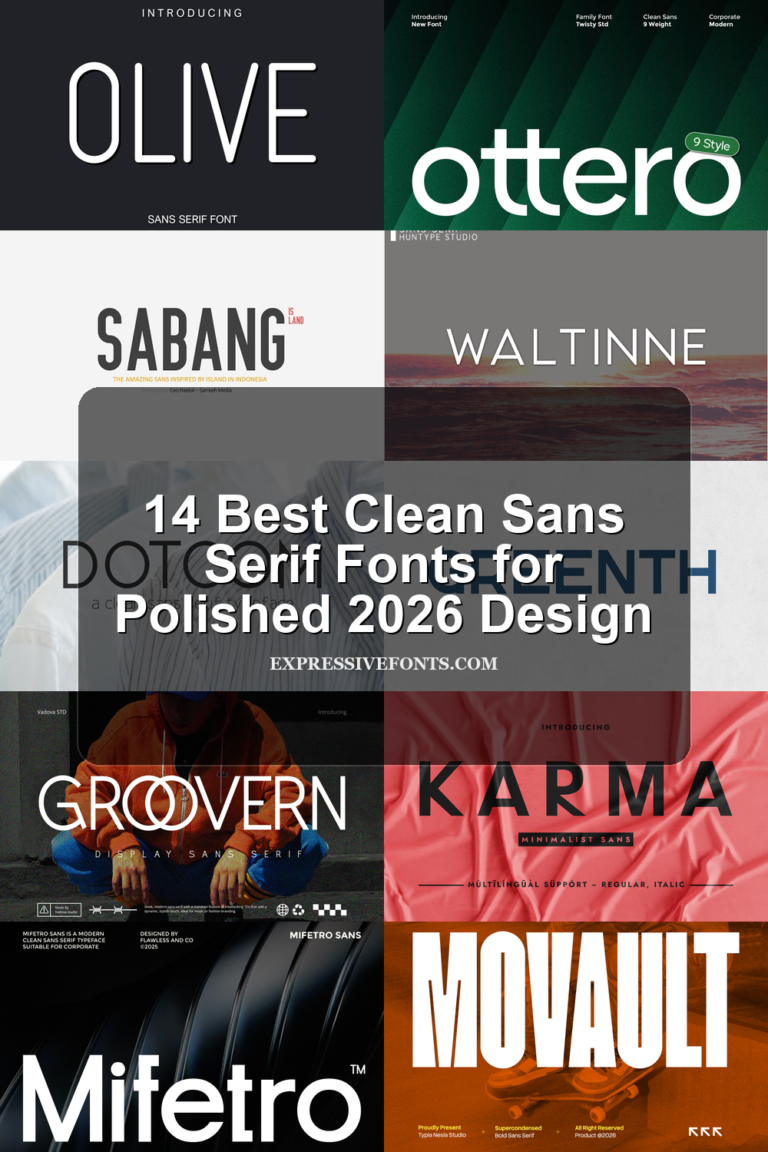
14 Best Clean Sans Serif Fonts for Polished 2026 Design
Browse clean sans serif fonts for logos, posters, websites, packaging, and editorial layouts. This selection groups bold condensed, rounded minimal, slim editorial, and modern geometric styles so you can choose faster.